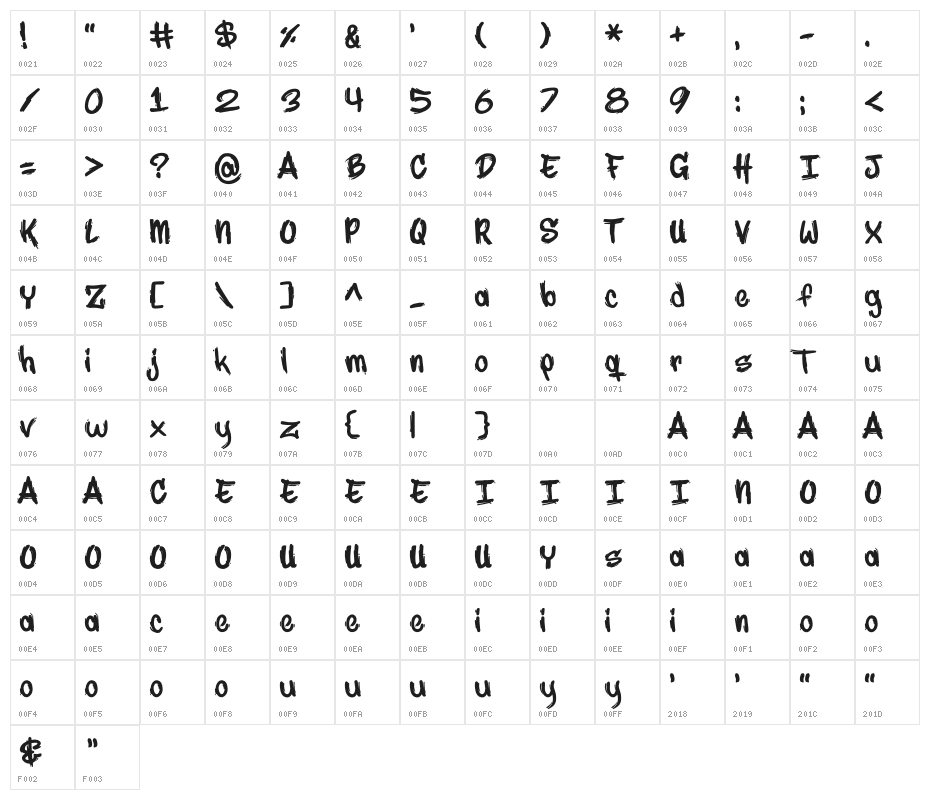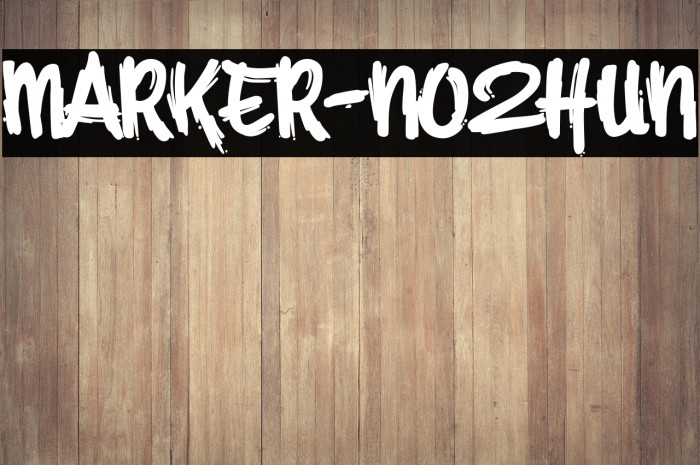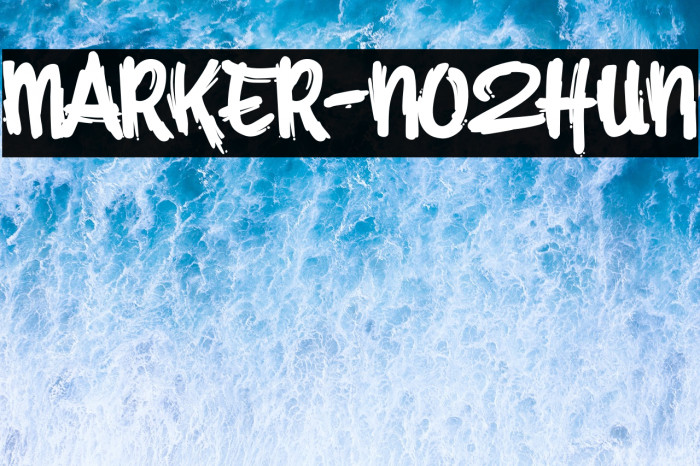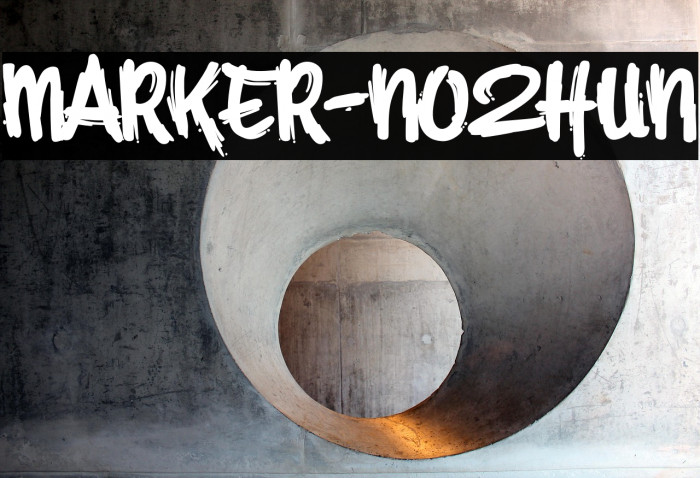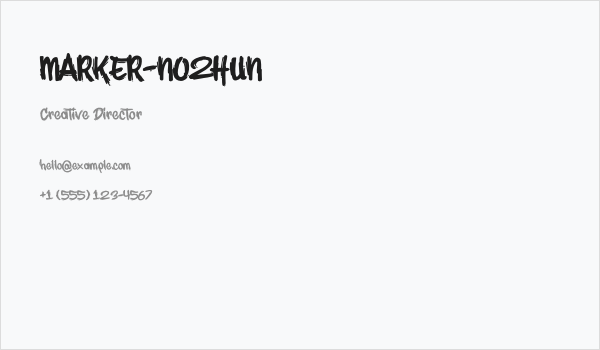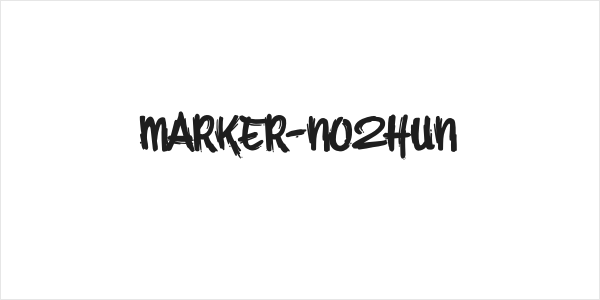
MARKER-NO2HUN Font
MARKER-NO2HUN Description
This font features a bold, energetic style with a hand-drawn appearance, reminiscent of graffiti or marker writing. The characters are thick and expressive, with uneven edges and a dynamic flow that suggests movement and spontaneity. The uppercase and lowercase letters maintain a consistent style, with exaggerated curves and strokes that give the font a lively and informal feel. Numbers and special characters are equally bold, ensuring a cohesive look across all text elements. The overall design is playful and eye-catching, making it suitable for projects that require a strong visual impact.
| Proposed Projects | Ideal for street art-inspired designs, posters, album covers, and branding that requires a bold, informal touch. |